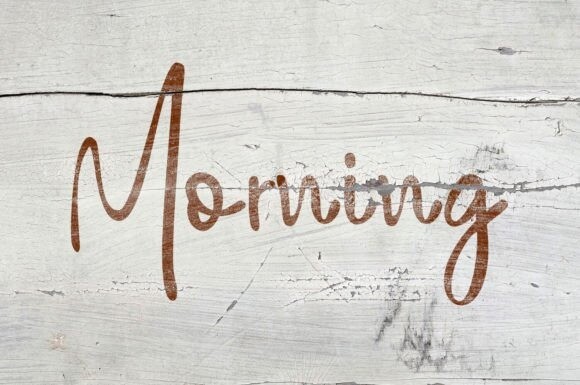
Morning Script Font
Morning Script Font is perfect for: logos, branding, business cards, greeting cards, posters, magazines, social media, planner prints and websites. You will need to know HOW to access the alternatives. These are easily accessible in photoshop, illustrator and through your character map panel.